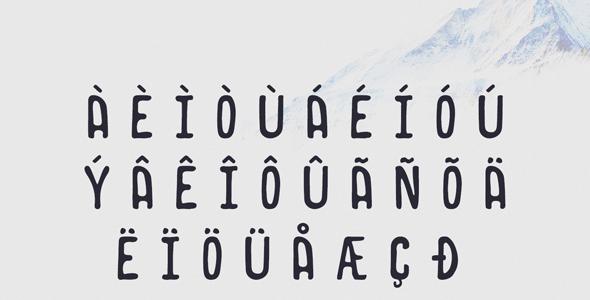
Norquay - Hand Drawn Font
Norquay – a vintage handcrafted sans serif font, including Regular and Bold. It’s perfect for your hand drawn logos and branding. THANKS FOR: Vintage Badges for preview example & Photos: Graphicburger & Unsplash